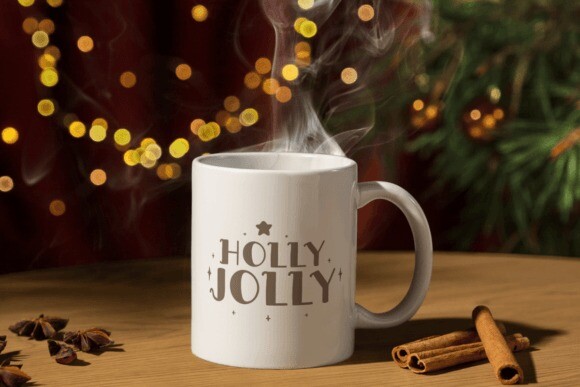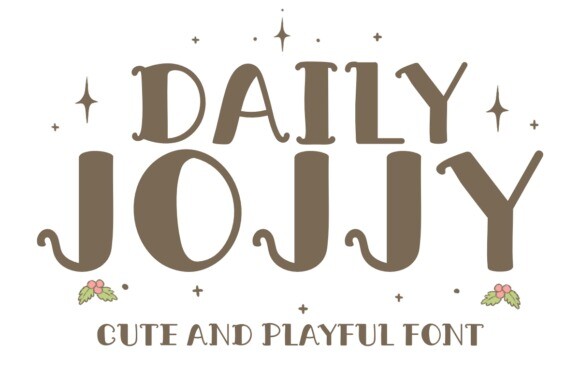
Daily Jolly Font
Daily Jolly Font, joyful font brings a playful touch to all your Christmas projects. With its chunky, festive letters, Daily Jolly is perfect for holiday cards, gift tags, seasonal posters, and cozy winter-themed crafts. Its lively, hand-drawn feel makes every letter pop with personality, spreading joy from the very first glance. Let Daily Jolly brighten up your holidays and add a sprinkle of magic to each design!